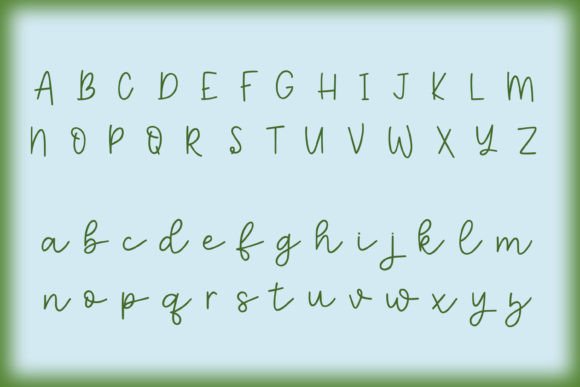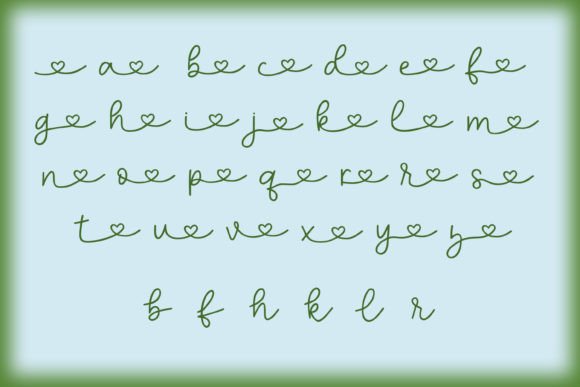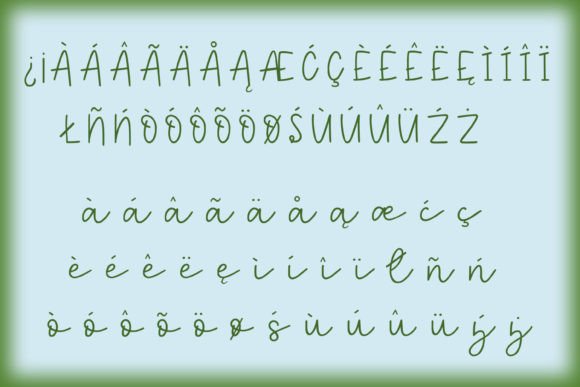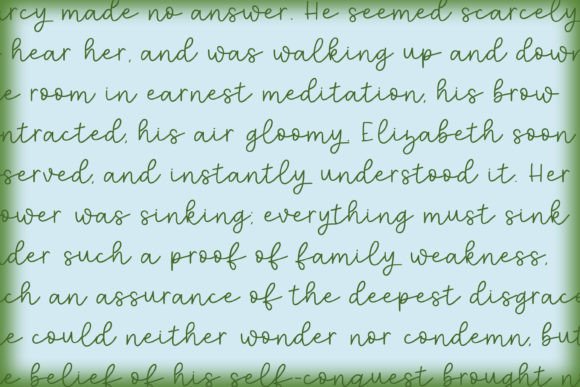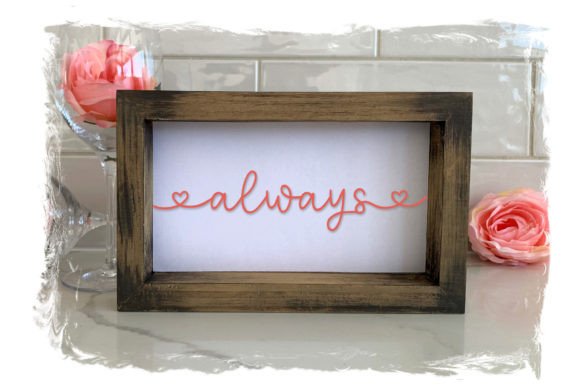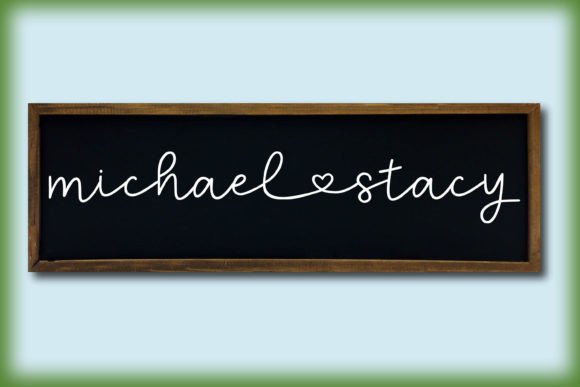
Flying High Font: Elevate Your Designs with Elegance and Sophistication
Are you looking for a font that can add a touch of luxury and romance to your design projects? Look no further than the Flying High Font, a beautiful calligraphy typeface that is sure to take your designs to new heights. With its dancing characters and elegant ligatures, this font is perfect for designers and crafters who want to create stunning visual content.
What is Flying High Font?
Flying High Font is a romantic and sweet calligraphy typeface that features characters that dance along the baseline, creating a sense of movement and fluidity. This font is perfect for adding a touch of elegance and sophistication to any design project, whether it’s a wedding invitation, a branding campaign, or a packaging design.
Key Features of Flying High Font
• Luxury Spark: This font is designed to add a luxury spark to any design project. With its elegant characters and beautiful ligatures, it’s perfect for creating high-end designs that stand out from the crowd.
• Romantic and Sweet: Flying High Font has a romantic and sweet feel that’s perfect for designs that require a touch of whimsy and charm. Whether you’re creating a wedding invitation or a branding campaign, this font is sure to add a touch of personality to your designs.
Why Choose Flying High Font?
There are many reasons why Flying High Font is a great choice for designers and crafters. Here are just a few:
• Unique and Elegant: Flying High Font is a unique and elegant typeface that’s sure to add a touch of sophistication to any design project.
• Versatile: This font is versatile and can be used in a wide range of design projects, from wedding invitations to branding campaigns.
How to Use Flying High Font in Your Designs
Using Flying High Font in your designs is easy. Here are a few tips to get you started:
• Pair it with Other Fonts: Flying High Font pairs well with other fonts, so don’t be afraid to experiment with different combinations.
• Use it for Headings: This font is perfect for headings and titles, so use it to add a touch of elegance to your designs.
• Experiment with Colors: Flying High Font looks great in a variety of colors, so don’t be afraid to experiment and find the perfect color for your design.
Who is Flying High Font for?
Flying High Font is perfect for designers and crafters who want to add a touch of elegance and sophistication to their designs. Here are a few examples of who might benefit from using this font:
• Wedding Designers: Flying High Font is perfect for wedding designers who want to create beautiful and elegant wedding invitations, save-the-dates, and other stationery.
• Branding Experts: This font is great for branding experts who want to create high-end branding campaigns that stand out from the crowd.
• Crafters: Flying High Font is also perfect for crafters who want to add a touch of elegance to their DIY projects, such as handmade cards and gift tags.
In conclusion, Flying High Font is a beautiful and elegant calligraphy typeface that’s perfect for designers and crafters who want to add a touch of luxury and romance to their designs. With its PUA encoding, unique characters, and elegant ligatures, this font is sure to take your designs to new heights. So why wait? Download Flying High Font today and start creating stunning visual content that stands out from the crowd!